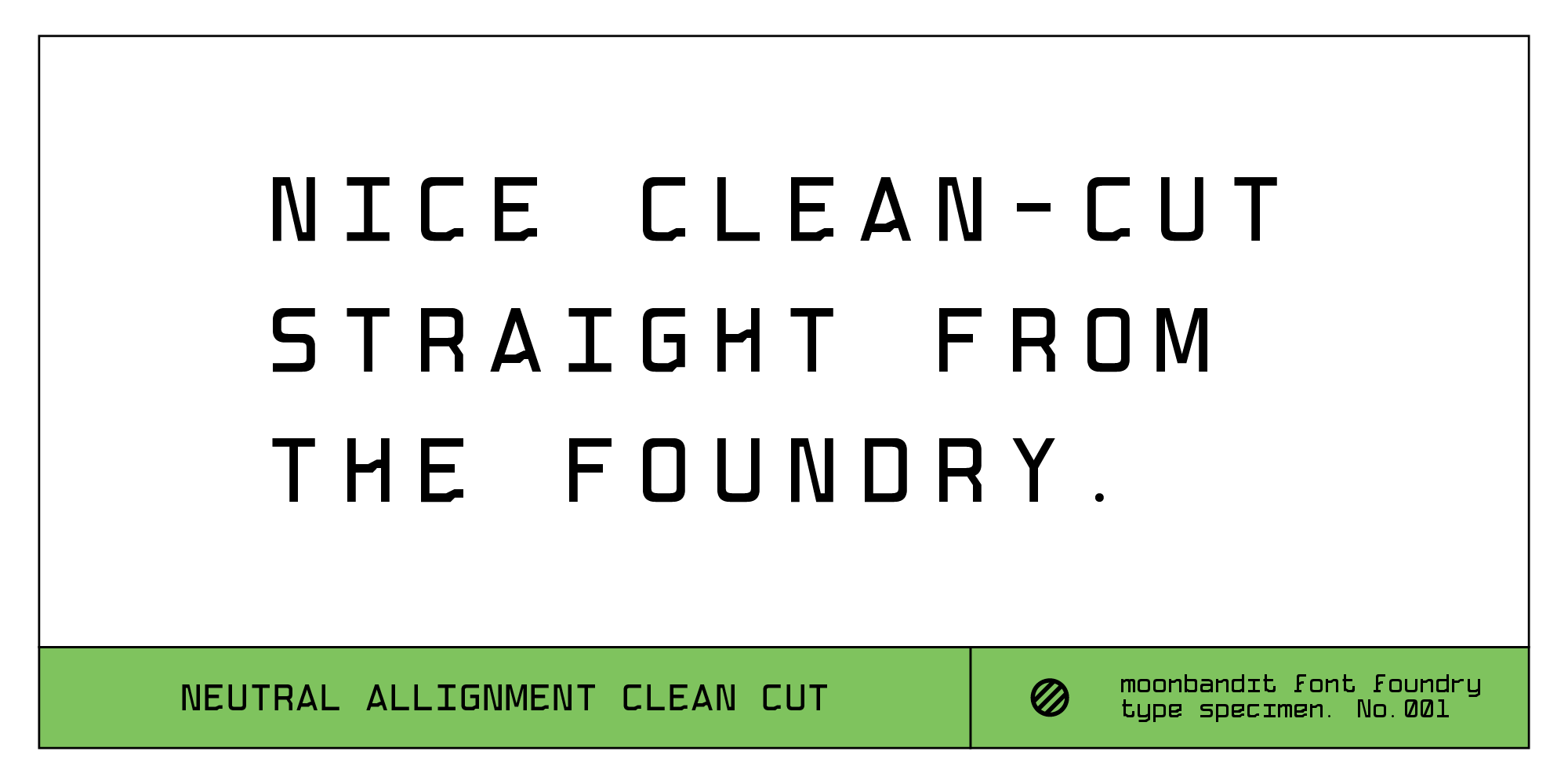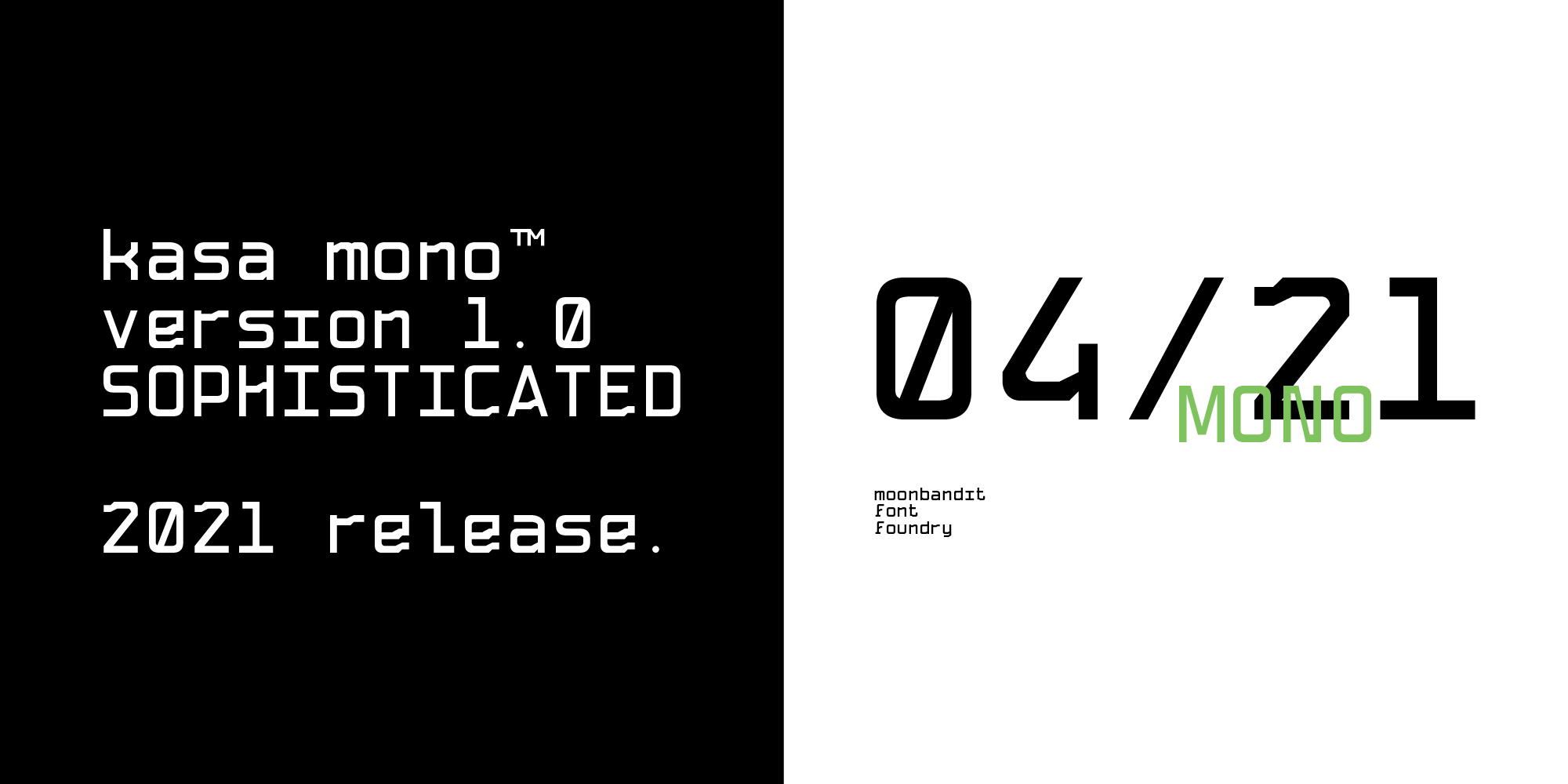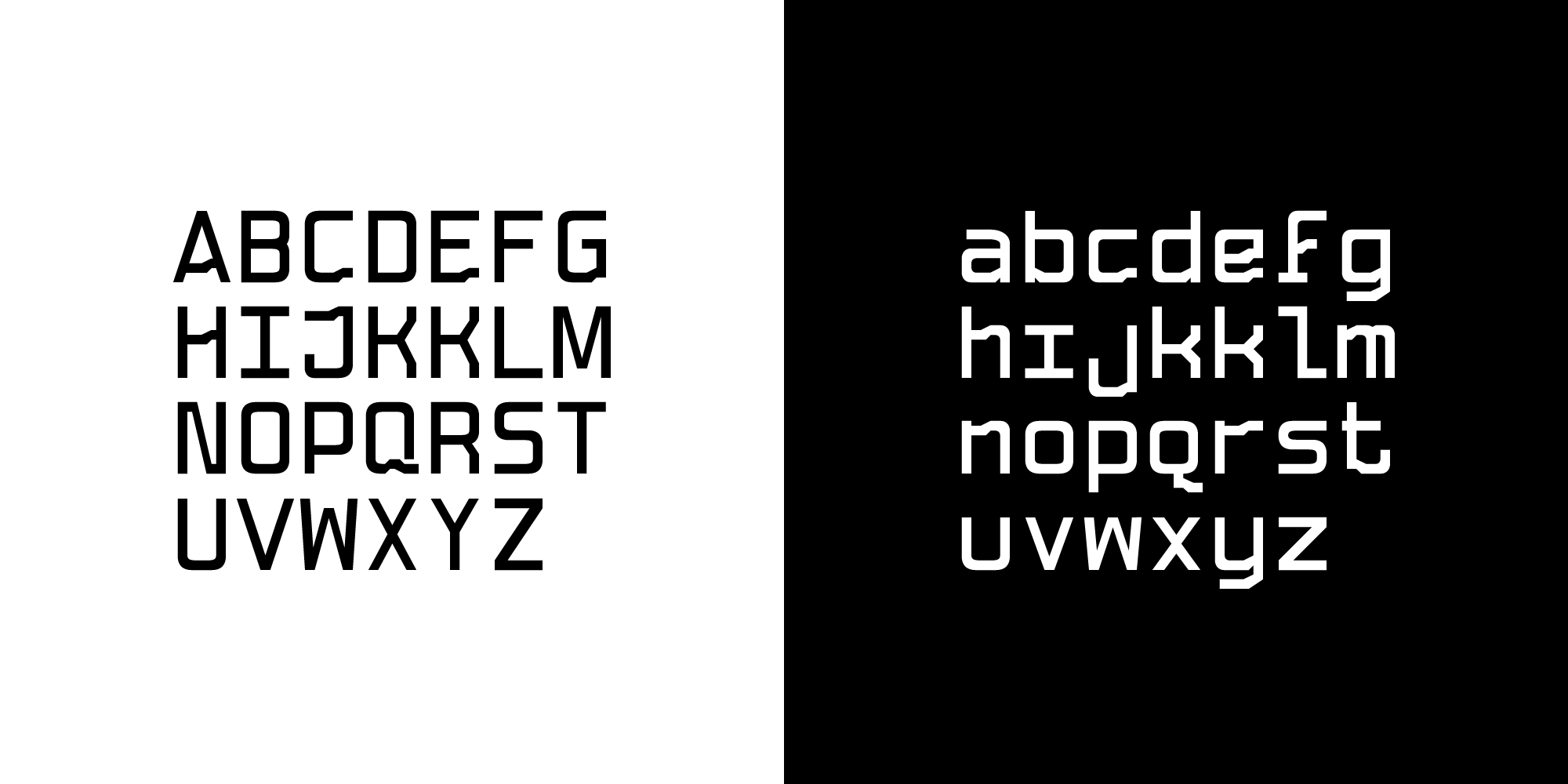
MBF Kasa
Modern and clean architecture at its best
MBF Kasa is a modern and sleek monospace font. This versatile typeface can enhanced your projects that goes with a modern theme. Kasa have a geometric. futuristic, scifi feel but not overwhelming.This typeface is perfect for logo, text, display, headline, poster and many other